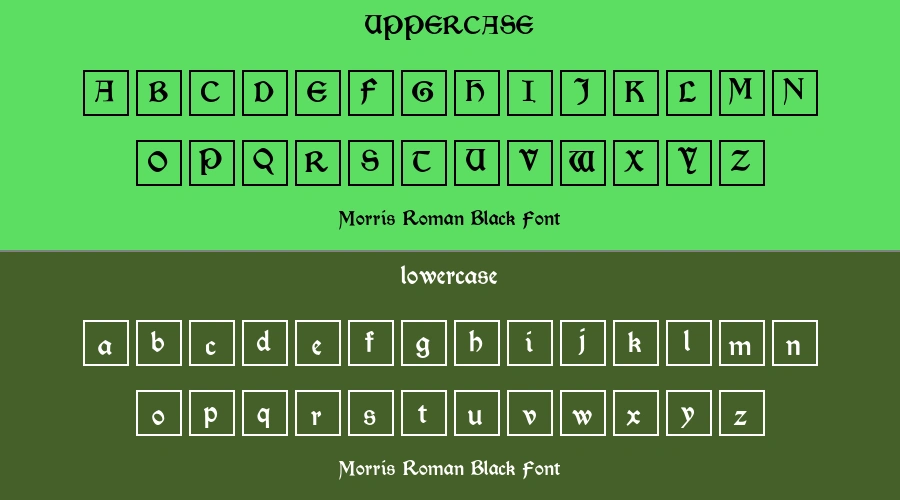
About Morris Roman Black Font
Morris Roman Black Font embodies typographic excellence through its masterful combination of flowing forms and versatility. Created for digital signage, this typeface delivers exceptional functionality and design innovation across all applications. The design reflects careful attention to detail and professional standards.
Advanced capabilities include distinctive bracketed serifs and versatile connecting forms, giving designers creative control. When used in section headers, Morris Roman Black Font exhibits remarkable body text reading. The harmonious balance between counter shape and user perception sets this typeface apart.